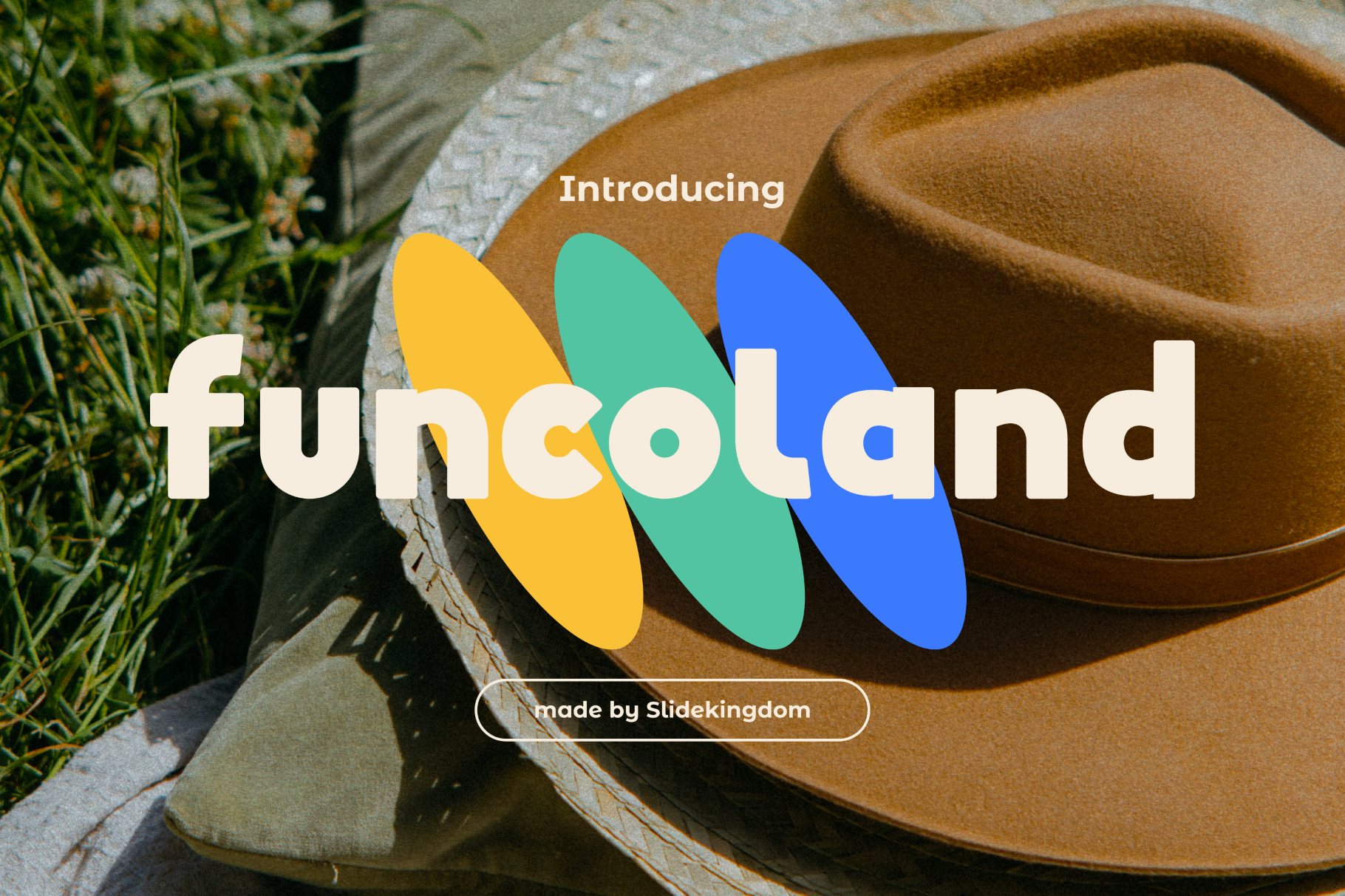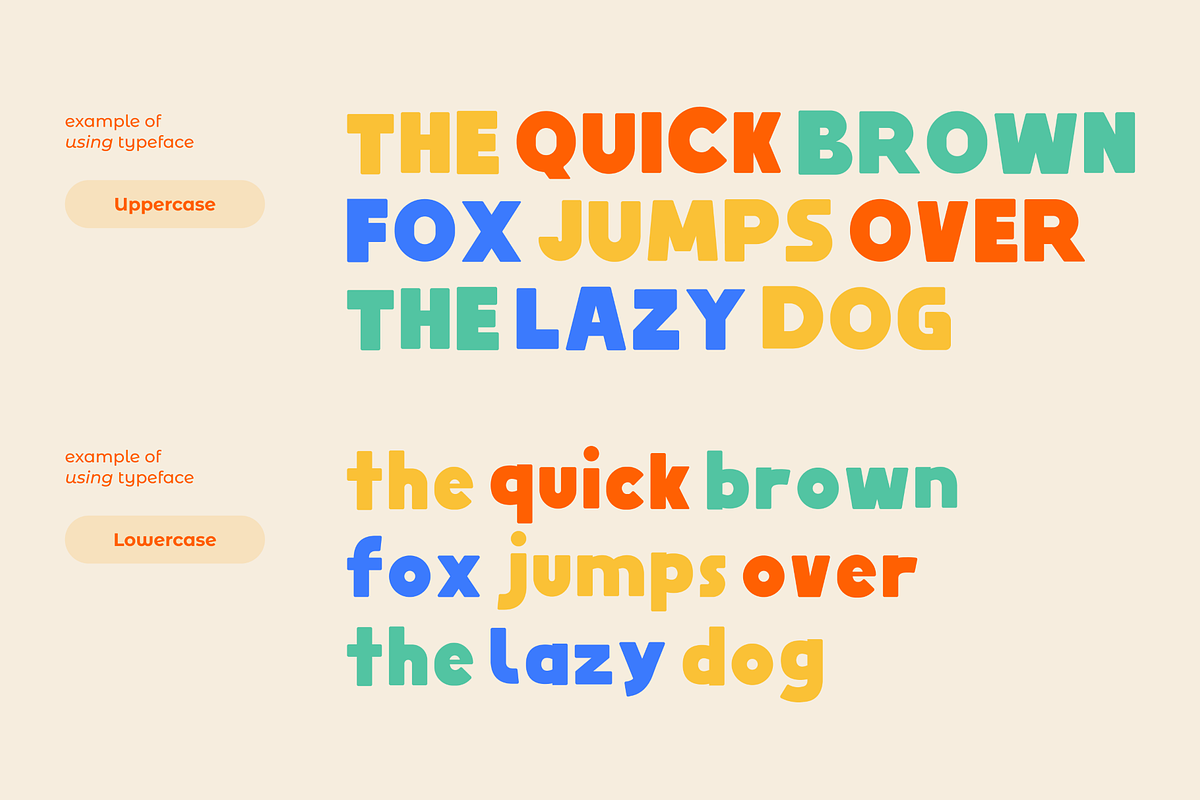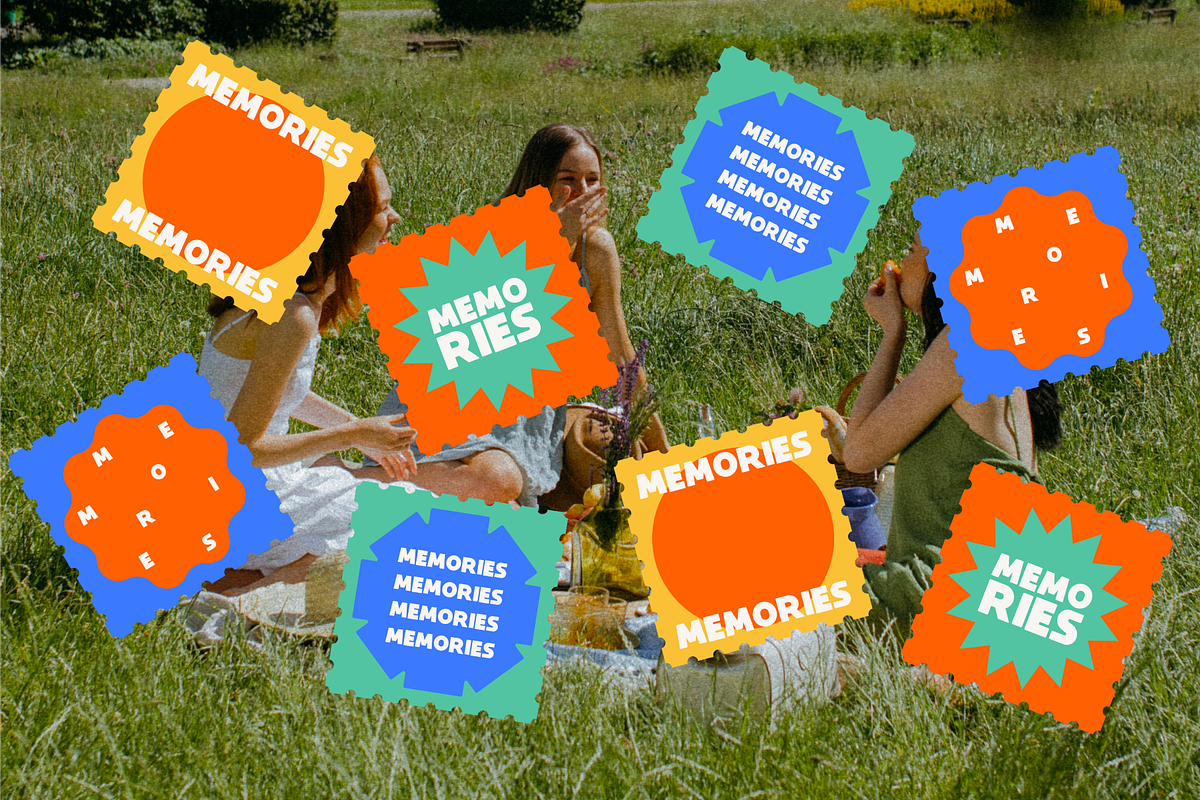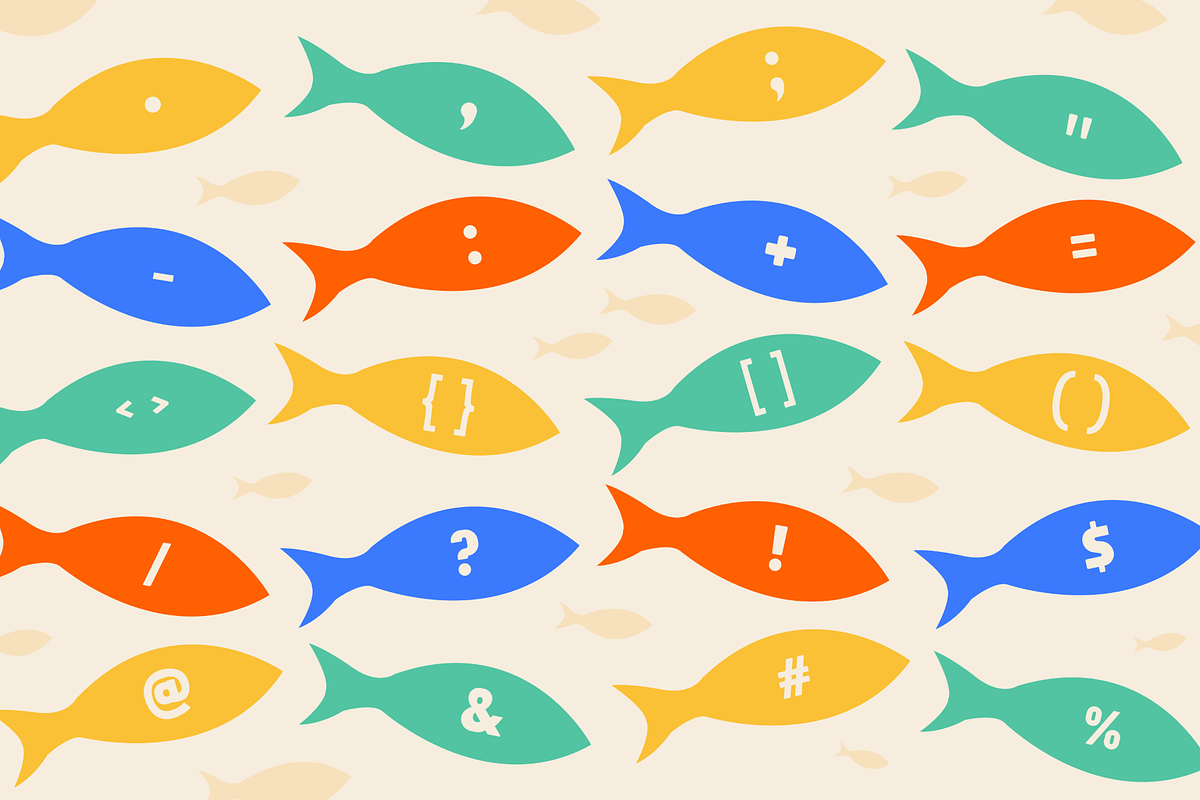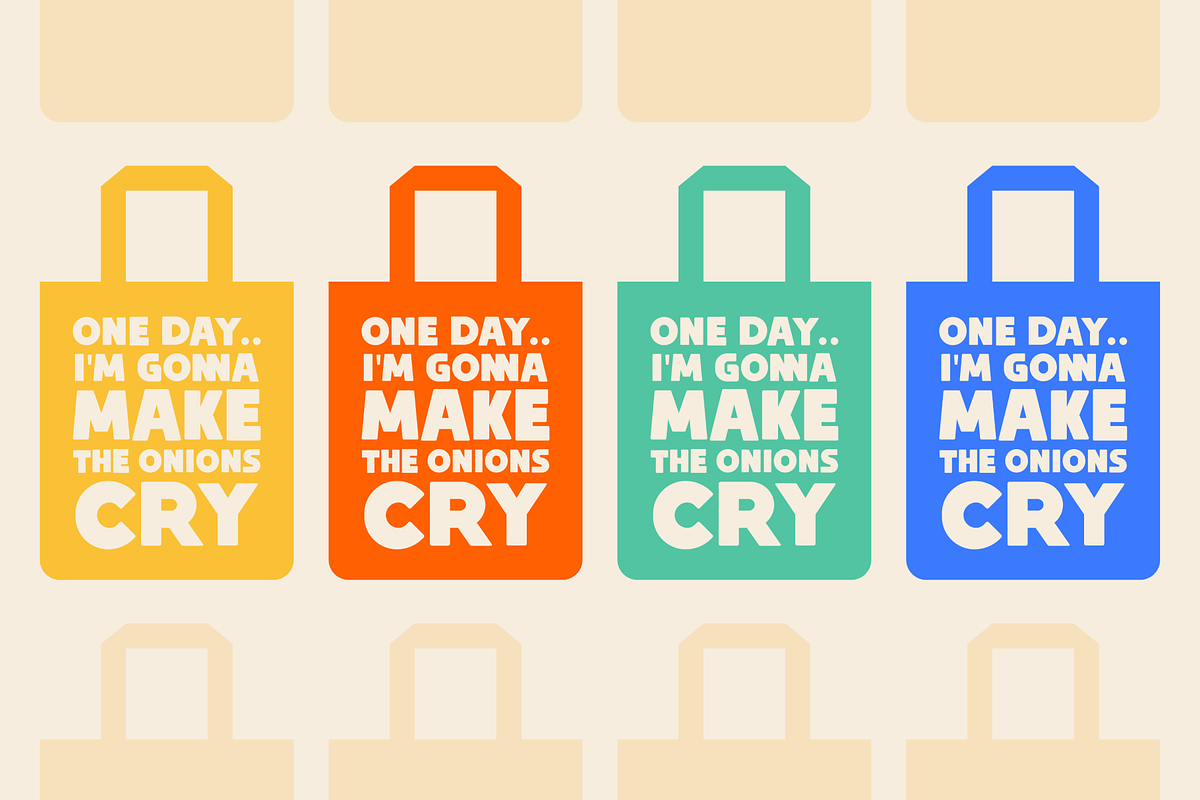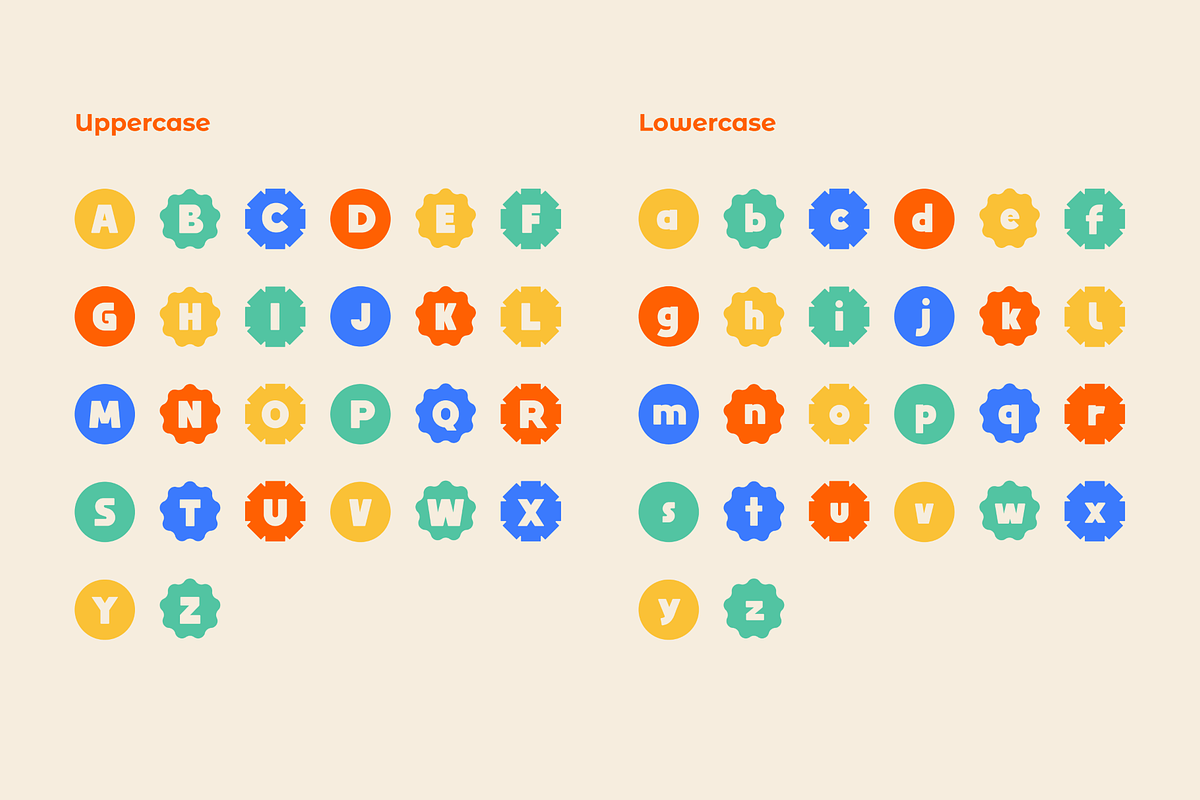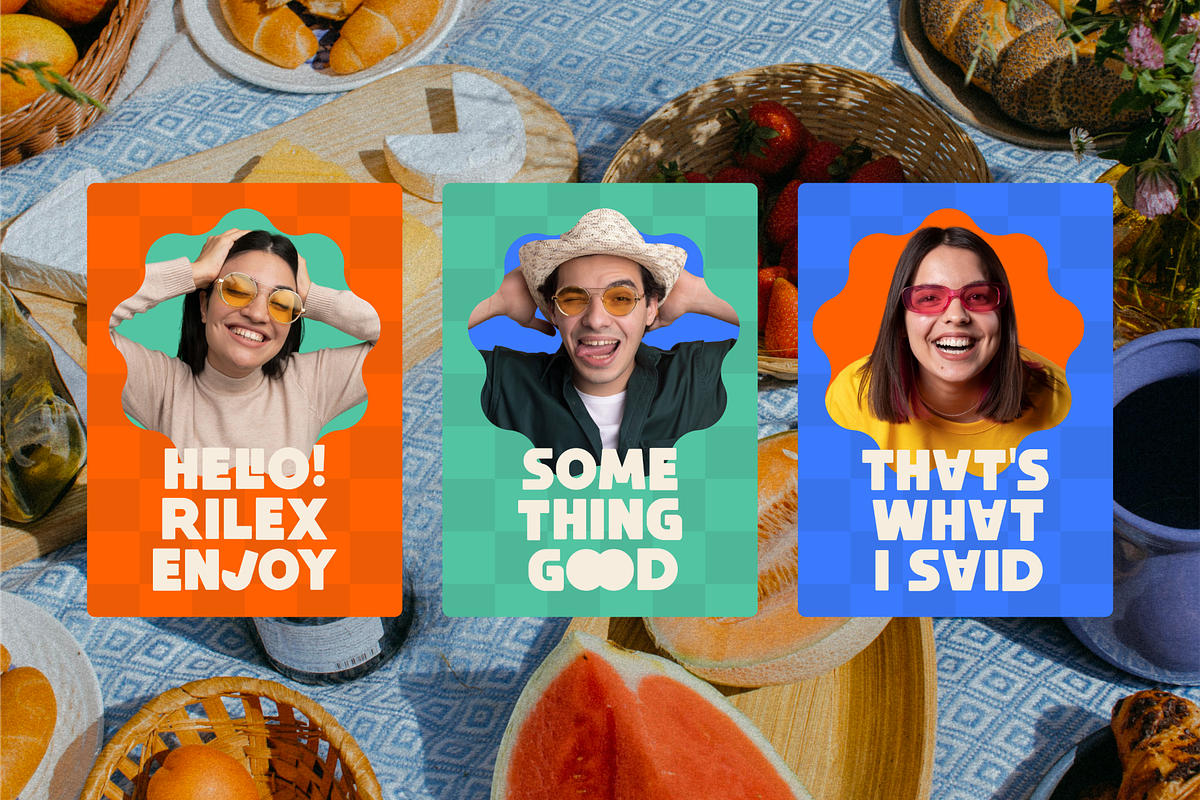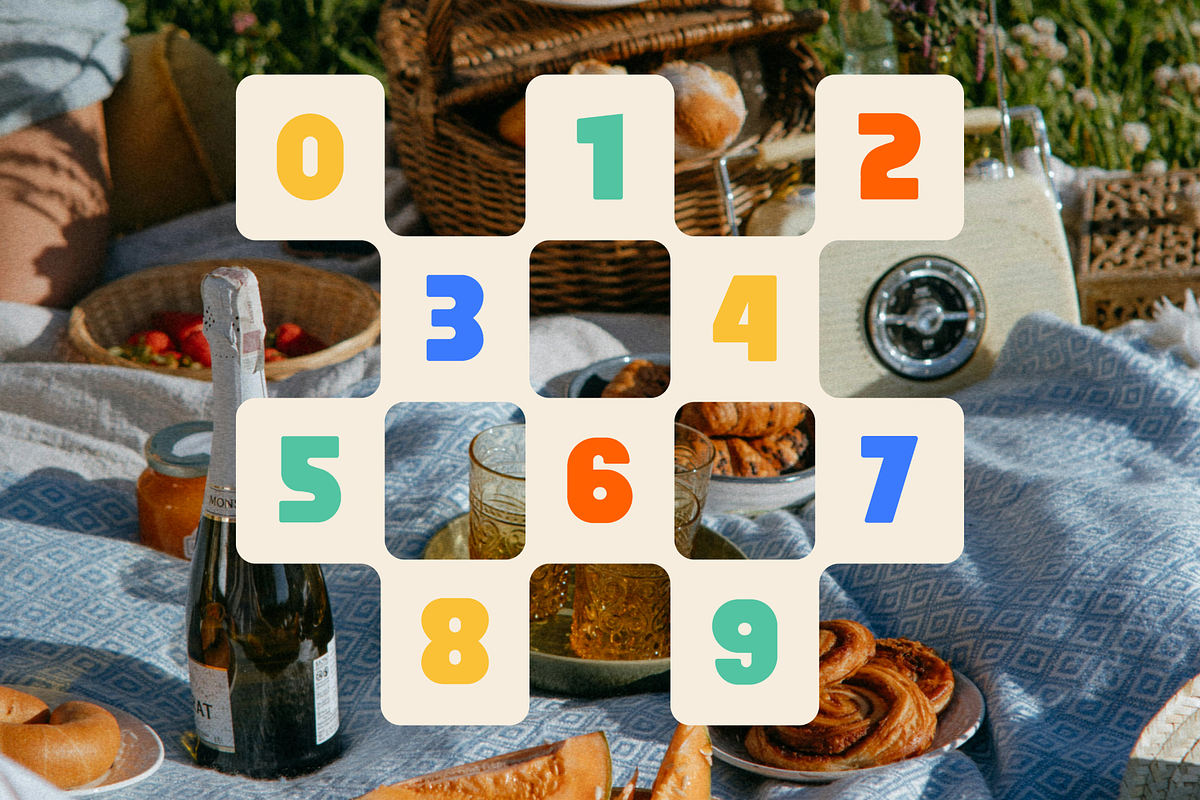
Funcoland - Playful Display Font
Funcoland is a bold, playful display font that radiates personality and charm. Perfect for branding, posters, packaging, and kids’ designs, its rounded shapes and vibrant energy bring joy to any project. Funcoland is your go-to typeface for fun, expressive, and memorable visual storytelling. Let your creativity run wild!